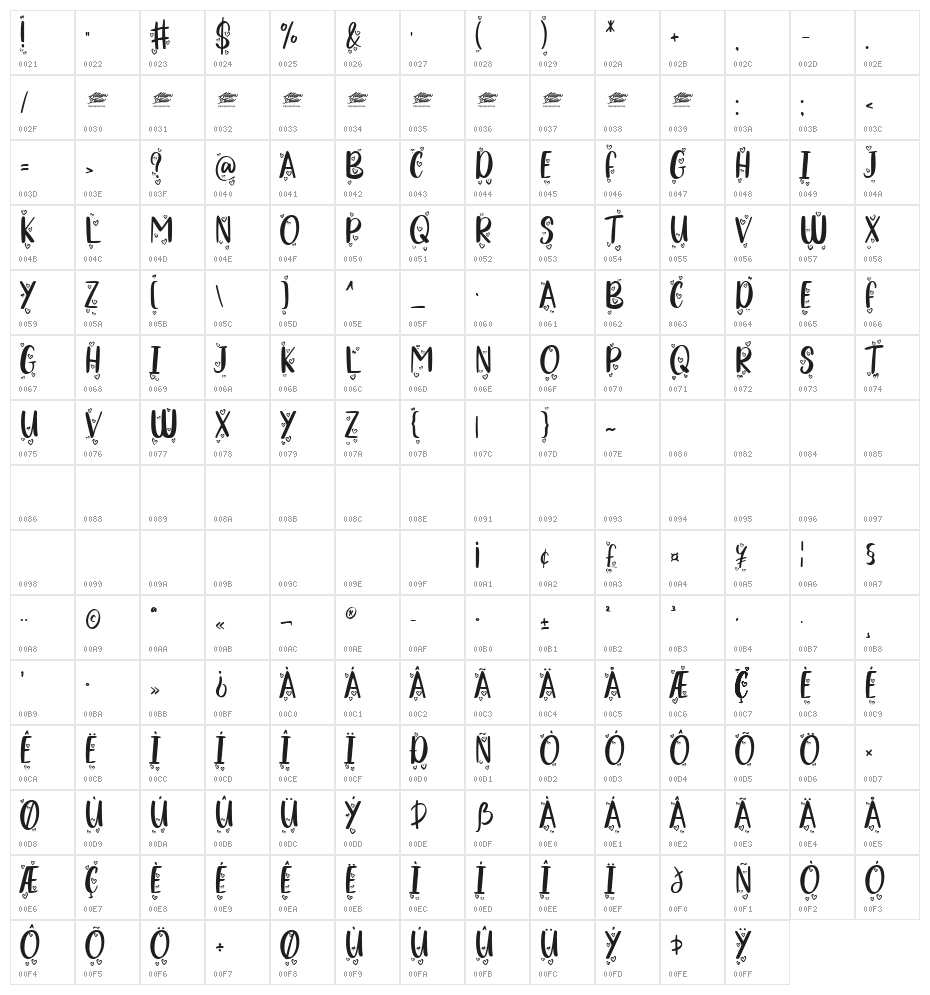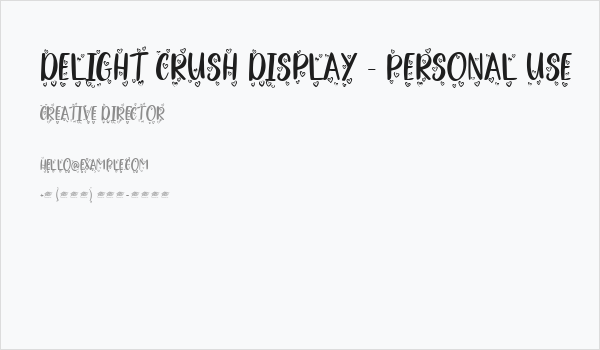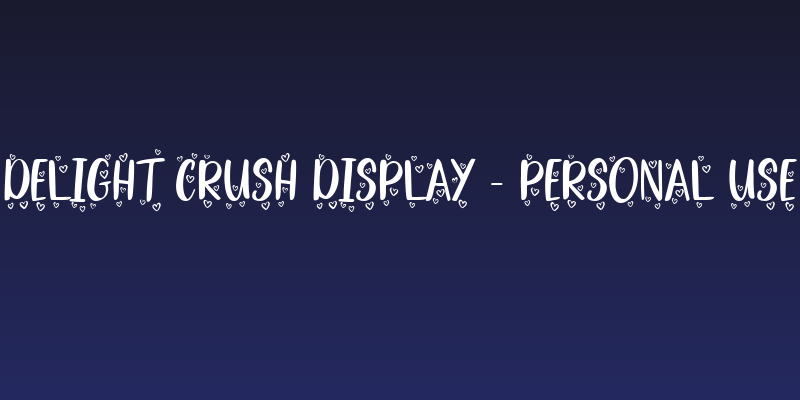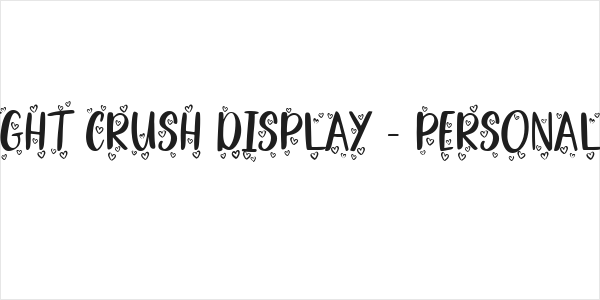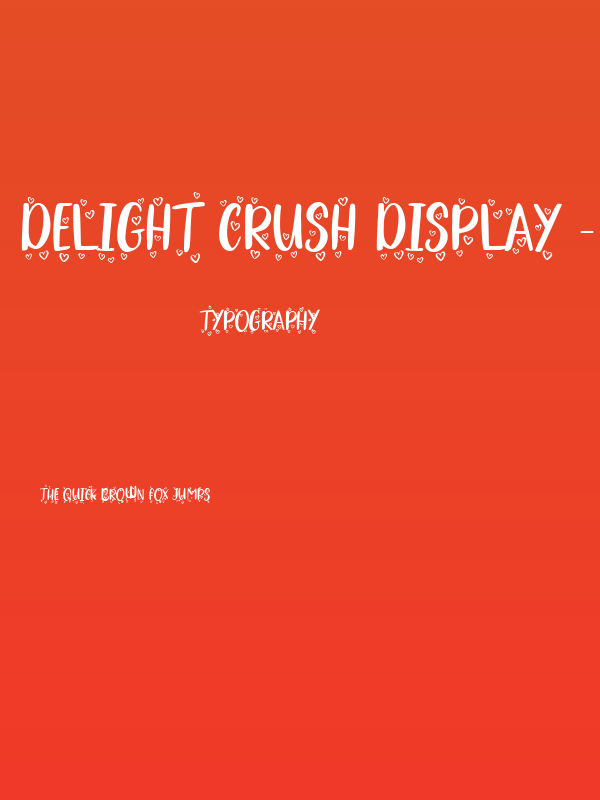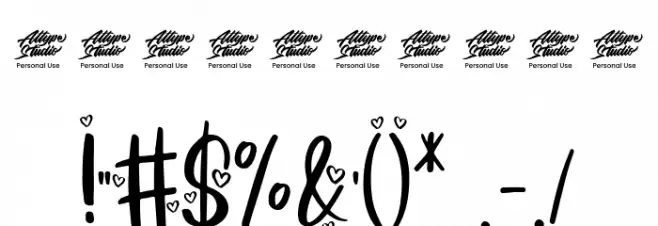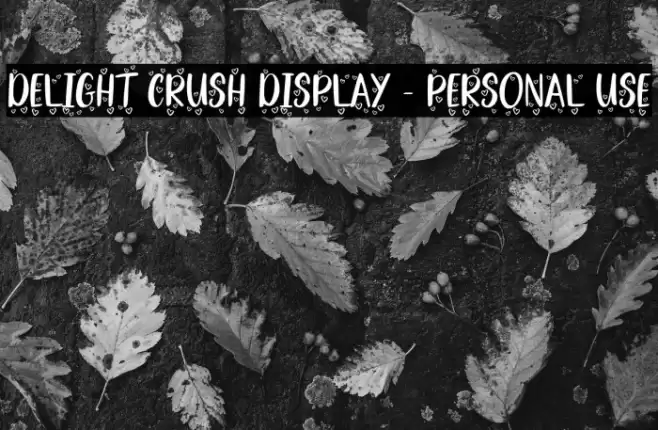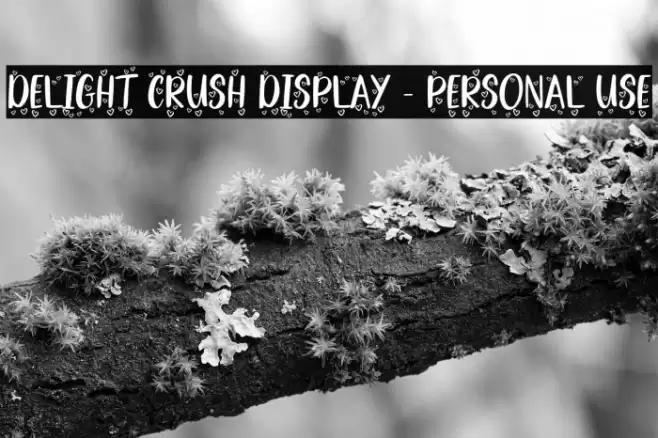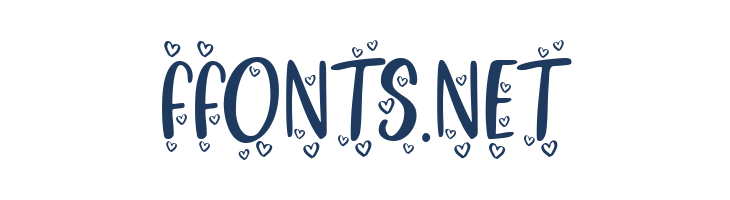
Delight Crush Display - Personal Use Font
This playful and whimsical font features bold, rounded characters with a hand-drawn aesthetic. Each letter is adorned with small heart accents, adding a touch of charm and romance. The strokes are thick and consistent, providing a strong visual presence. The font maintains a casual and friendly vibe, making it suitable for designs that aim to convey warmth and approachability. Its decorative elements make it stand out, while still ensuring readability. The inclusion of both uppercase and lowercase letters, along with numbers and a variety of special characters, offers versatility for different design needs.
| Proposed Projects | Ideal for greeting cards, wedding invitations, playful branding, and children's book covers. |